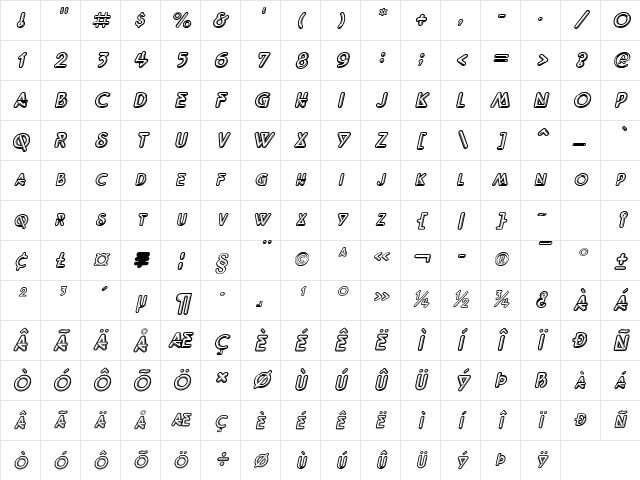
Neonz Italic Free Font
Neonz Italic
Design Context for Neonz
Neonz has a distinctly futuristic character, with geometric precision and clean angles that feel at home in technology, gaming, and sci-fi contexts. The slanted form adds forward momentum and visual energy.